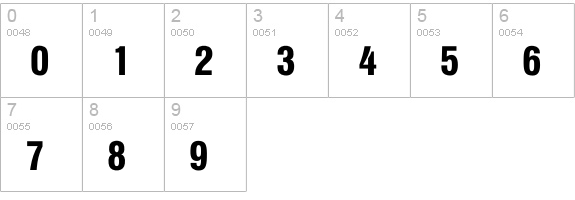
Colympia Bold Font Details
Colympia Bold is a strong, high-contrast variant in the Colympia typeface family \xE2\x80\x94 well suited to headlines, attention-grabbing titles, and strong calls-to-action.
Introducing Colympia Bold font, a modern and versatile typeface that exudes confidence and sophistication. With its bold and impactful design, Colympia Bold is perfect for making a statement in headlines, logos, branding materials, and more. The strong, clean lines of this font give it a timeless appeal that will elevate any design project. Colympia Bold is not only visually striking but also highly readable, making it a great choice for both print and digital applications. Whether you're designing a poster, website, or packaging, this font will help your content stand out and leave a lasting impression. Best of all, Colympia Bold is available for free download at FontsMarket.com. Now you can access this premium font without any cost, allowing you to enhance your projects with professional typography without breaking the bank. Don't miss out on this opportunity to add Colympia Bold to your font collection and take your designs to the next level.